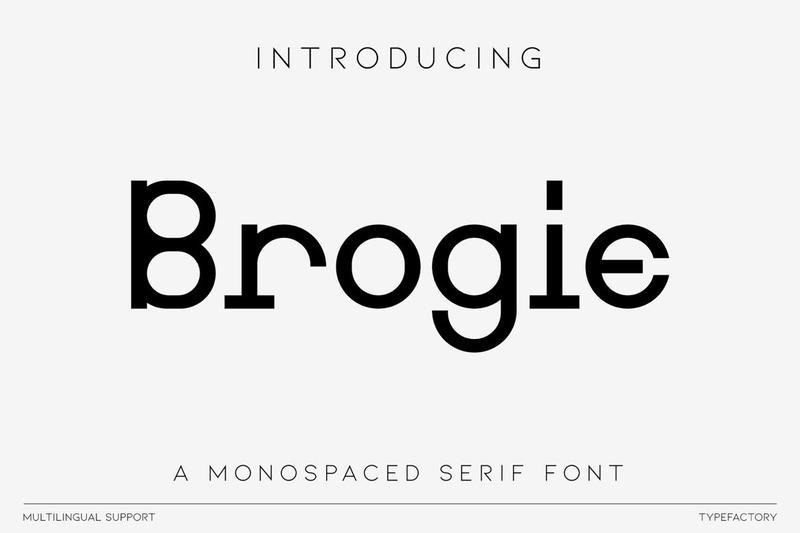
Modern Monospace Font – Brogie BBRBS84
Brogie is a modern monospaced serif font designed with clean geometry and refined contemporary details. Featuring balanced proportions, distinctive ligatures, and stylish alternate characters, it delivers a sophisticated look while maintaining excellent readability. Its minimalist construction and consistent spacing make Brogie ideal for editorial layouts, branding, logos, signage, fashion campaigns, posters, packaging, magazines, web interfaces, and creative projects that embrace modern aesthetics. The combination of technical precision and stylish simplicity creates a versatile typeface suitable for both professional and artistic applications.